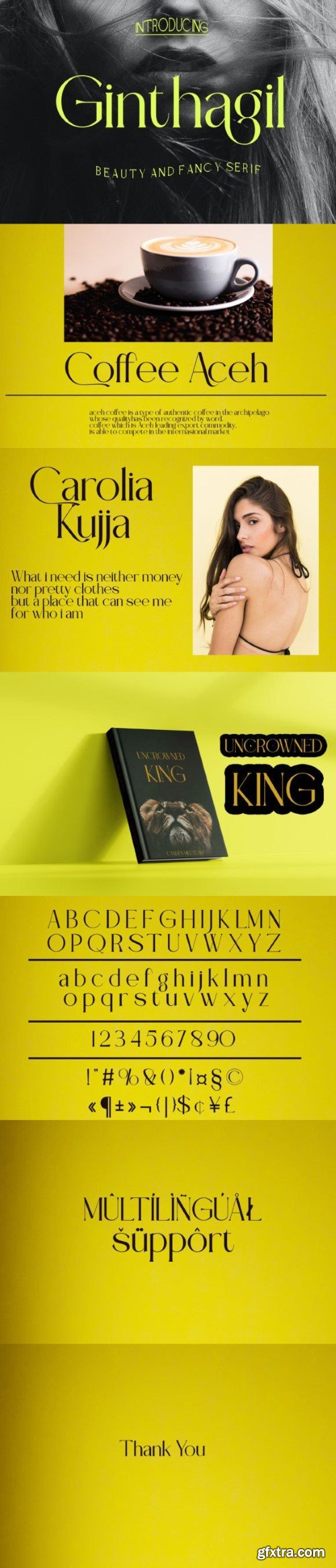
金泰格尔字体
Ginthagil Serif is a modern serif font packaged in a modern and classy style, complete with access to your OpenType feature to access a large selection of alternative letters and ligatures, the choice of letters you like from various uppercase and lowercase letters for a luxurious impression and elegant appearance.
A new elegant serif font that will add a touch of luxury and style to your projects. This is a very versatile font that works well in both large and small sizes.